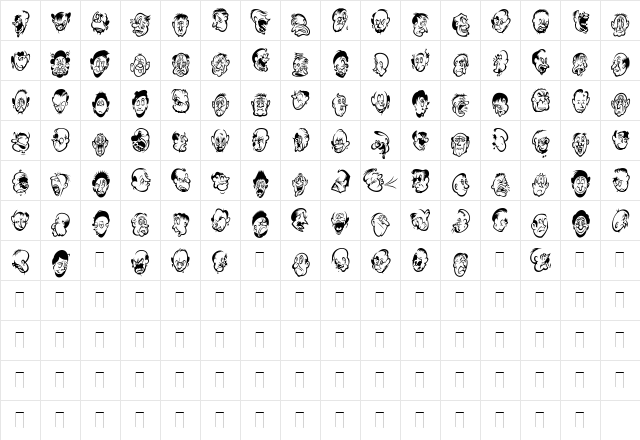
DF Expressions Medium
Design Context for DF Expressions Typeface
DF Expressions is a composed and adaptable typeface that performs quietly and consistently across a wide range of design contexts.
Pro Tip: Use DF Expressions in both headline and body roles to test its range before committing to a single application.